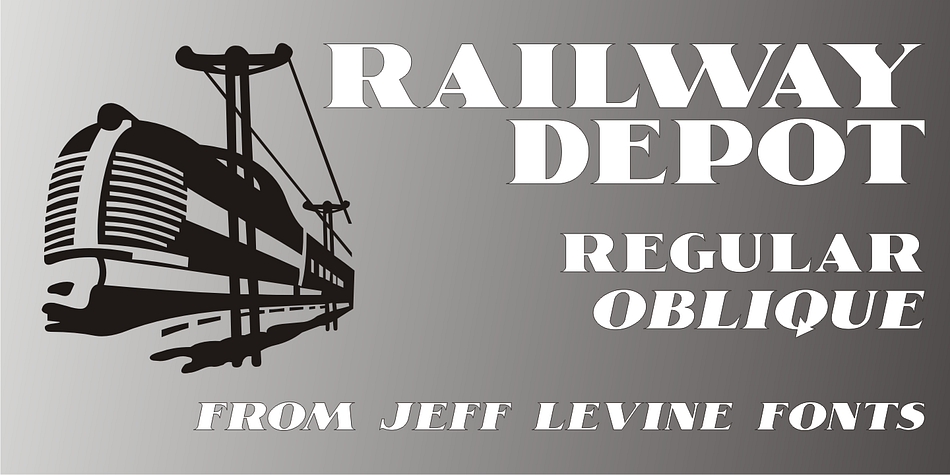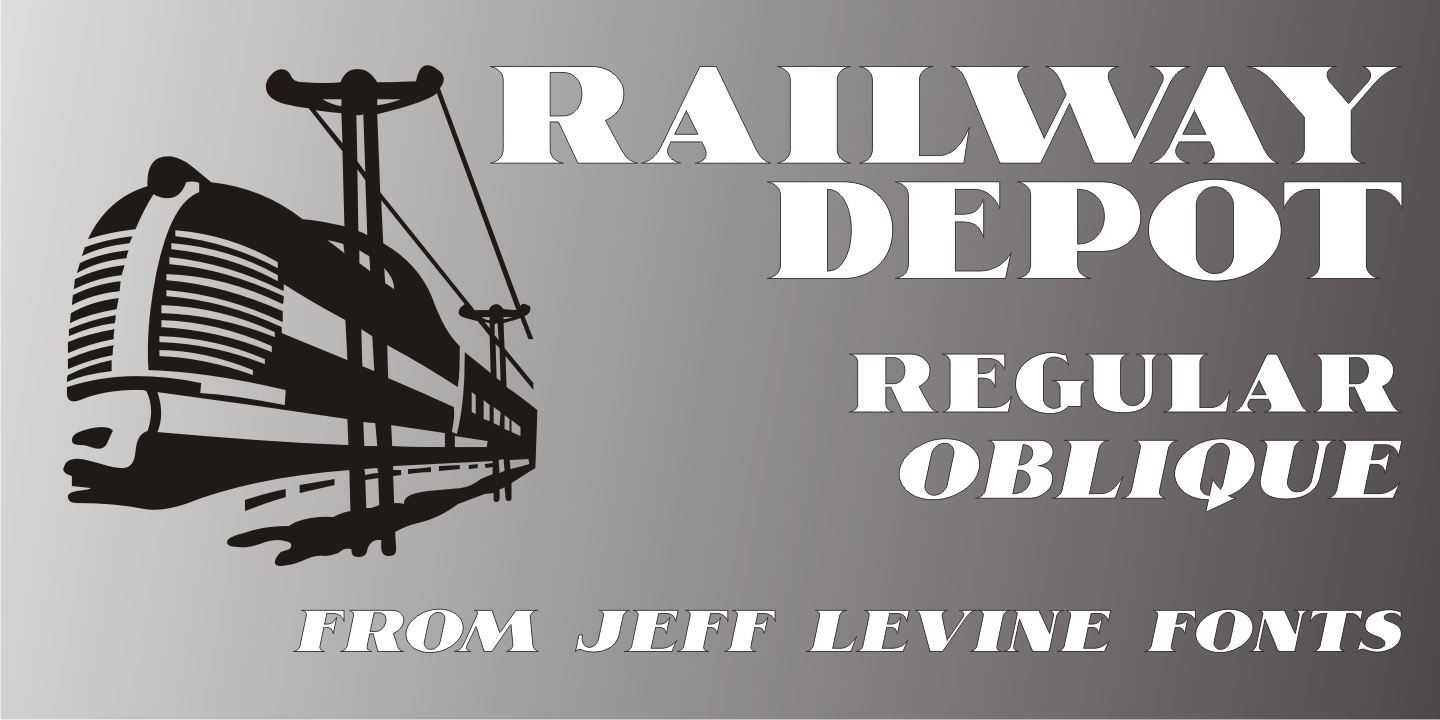
Designed by Jeff Levine, Railway Depot JNL is a display serif font family. This typeface has two styles and was published by Jeff Levine Fonts.
A bold spur serif design found within the pages of the 1934 French lettering instruction book “L’Art du Tracé Rationnel de la Lettre” provided the inspiration for Railway Depot JNL, which is available in both regular and oblique versions.